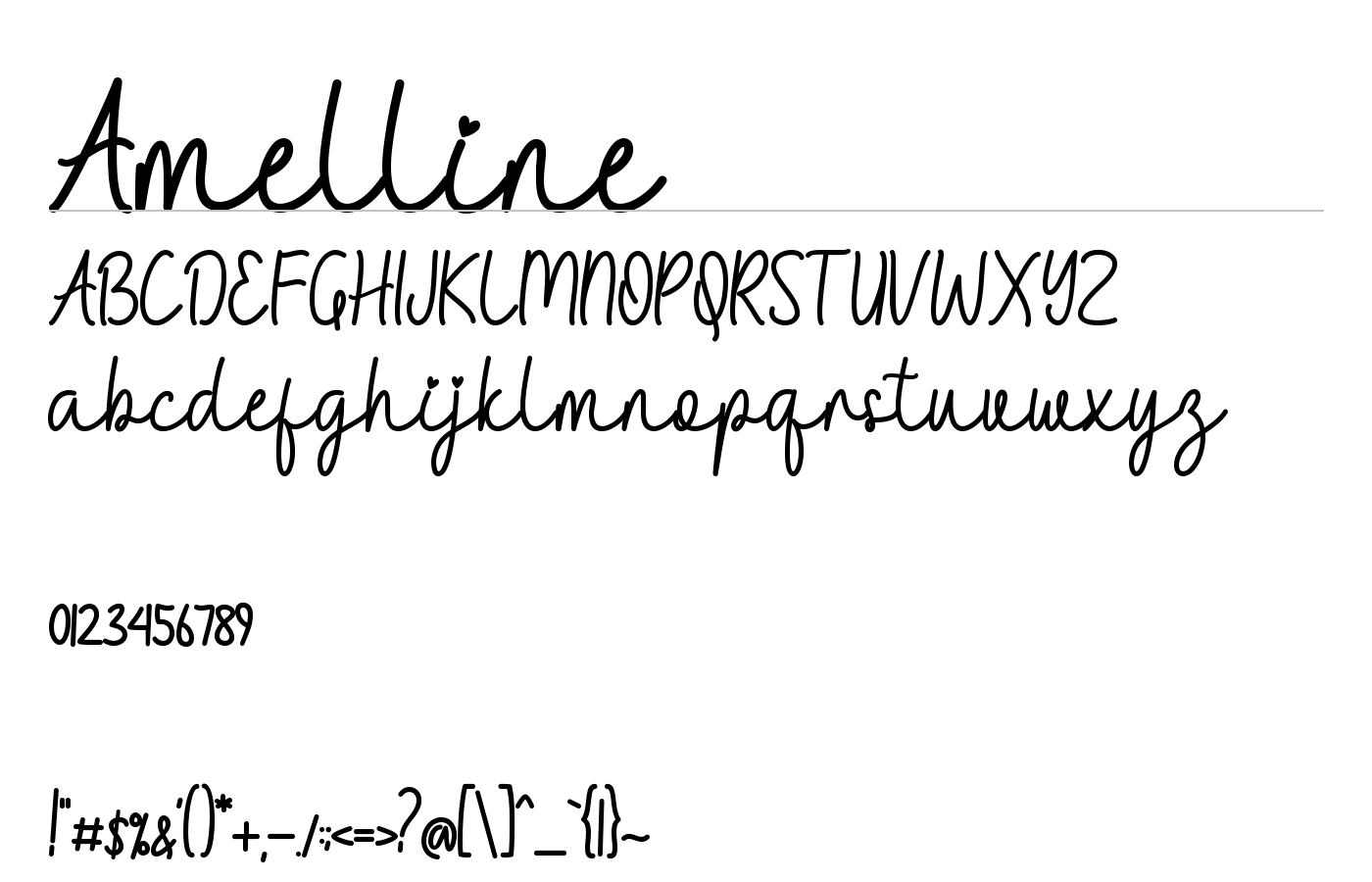
Amelline is a playful, handwritten script font with a light, airy feel characterized by its tall, narrow letterforms and charming, rounded strokes. Its casual style, featuring unique details like heart-shaped dots on the i’s, makes it perfect for creative, friendly branding, invitations, and informal headlines where a personal touch is desired. This font works beautifully in designs needing warmth and approachability, such as lifestyle blogs, children’s products, and casual event promotions.
Amelline Font
About Amelline Font
| Designer | Yoga Letter 2021 (Isroni Yoga Prasetya) |